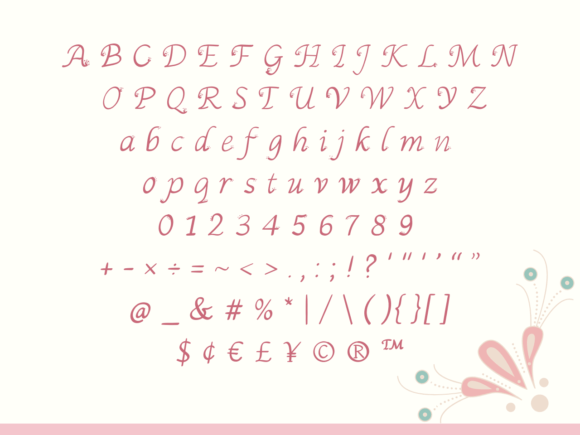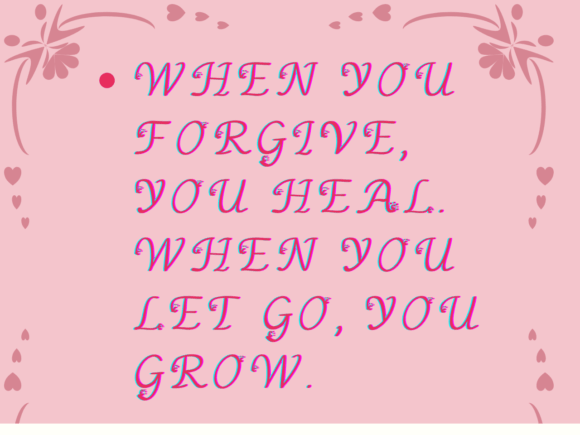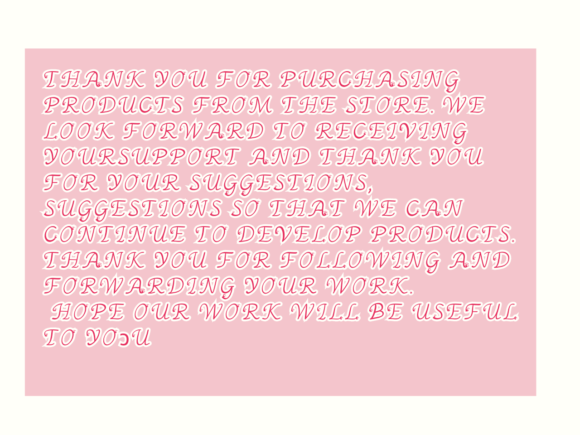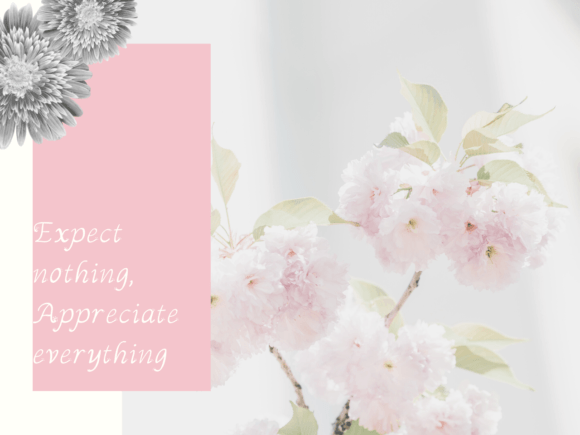
Introduction to Kawinthida Font
Have you ever been working on a creative project and suddenly, the perfect font pops up, elevating your entire design? That’s exactly what happened to us when we discovered the Kawinthida Font. This charming handwritten script font has become an instant favorite among designers, and we’re excited to share its story with you.
As a valuable design resource, Kawinthida Font offers a unique touch to any project. With its high-quality strokes and elegant feel, it’s the perfect addition to your next creative project. Plus, with a transparent background, you can easily layer it with other elements to create stunning visual effects.
- Features a unique, elegant design style that sets it apart from other fonts in its class.
- Perfect for use in a variety of creative projects, including logos, branding materials, and digital graphics.
Honest Review: Kawinthida Font
I recently had the chance to work with the Kawinthida Font, and I’m excited to share my honest thoughts on this design resource. Overall, I was impressed with the quality of the font and its potential uses in creative projects.
What works well: ✨ The Kawinthida Font has a unique and elegant design that makes it perfect for high-end branding and creative projects. The font is available for free download, which is a huge plus for designers on a budget. The transparent background also makes it easy to use in various design scenarios.
- Unique and elegant style
Limitations: ⚠️ While the Kawinthida Font is a great resource, I did find that it may not be suitable for all types of projects. The font is quite decorative, which may make it difficult to read in certain contexts. Additionally, the font may not be compatible with all operating systems or software.
Overall, I would highly recommend the Kawinthida Font for designers looking for a high-quality, free design resource. With a little creativity, this font can add a touch of elegance to any creative project.
The Kawinthida Font is commonly used in a variety of creative projects, including logos, icons, and infographics. Its high quality and transparent background make it ideal for use in design applications where a clear and legible font is necessary.
Comparison to Kawinthida Font: Great Vibes Font offers a more whimsical and playful feel, whereas Kawinthida Font is more elegant and sophisticated.